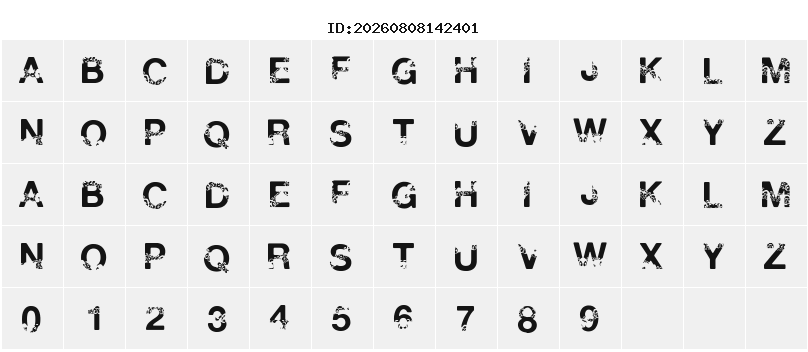
• Font Name: Polar Shift
• Full Font Name: Polar Shift Bold
About Polar Shift.ttf
Polar Shift.ttf is a modern, elegant sans-serif font designed for ultimate readability and visual harmony. Perfect for branding, headlines, web design, and print materials.